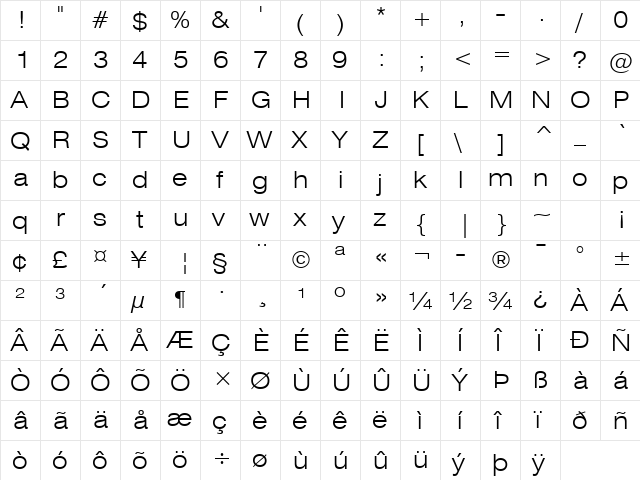
Swis721 LtEx BT Light Font Preview
Swis721 LtEx BT Light
Swis721 LtEx BT Light Font Details
Design Context for Swis721 LtEx BT Typeface
Swis721 LtEx BT offers clean, dependable letterforms without strong stylistic allegiance, making it a practical choice for designers who need flexibility. Its slender proportions lend an understated elegance to any composition.